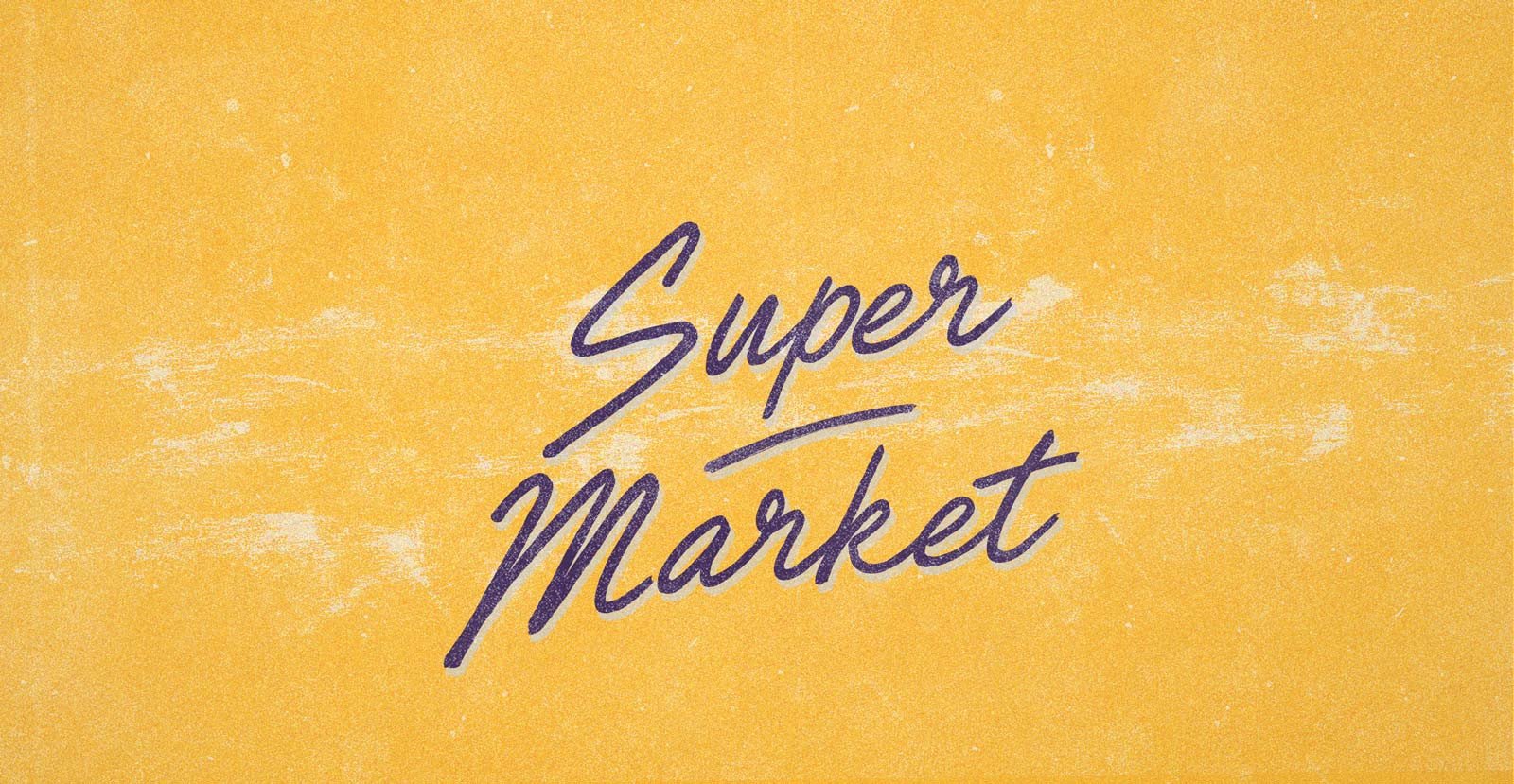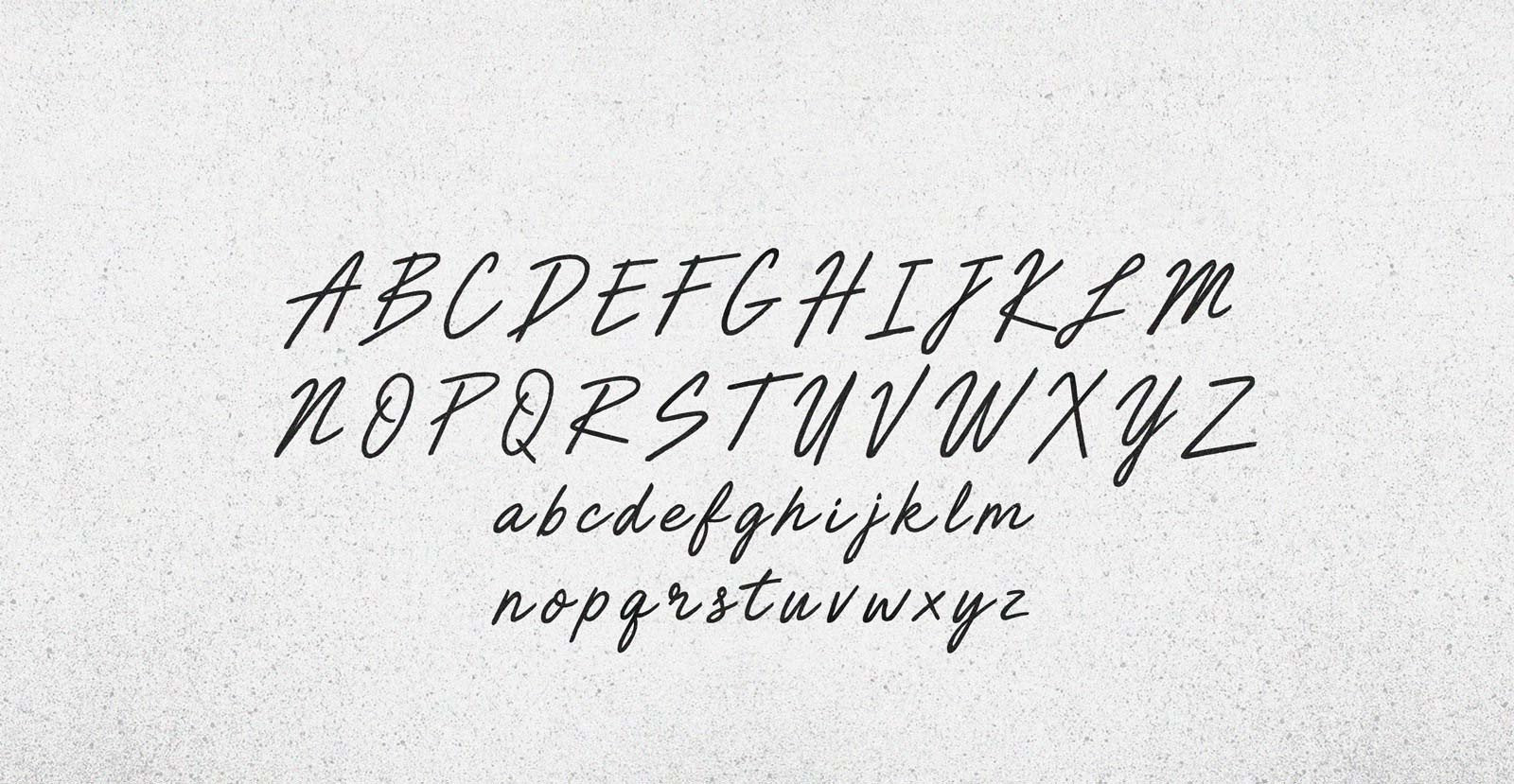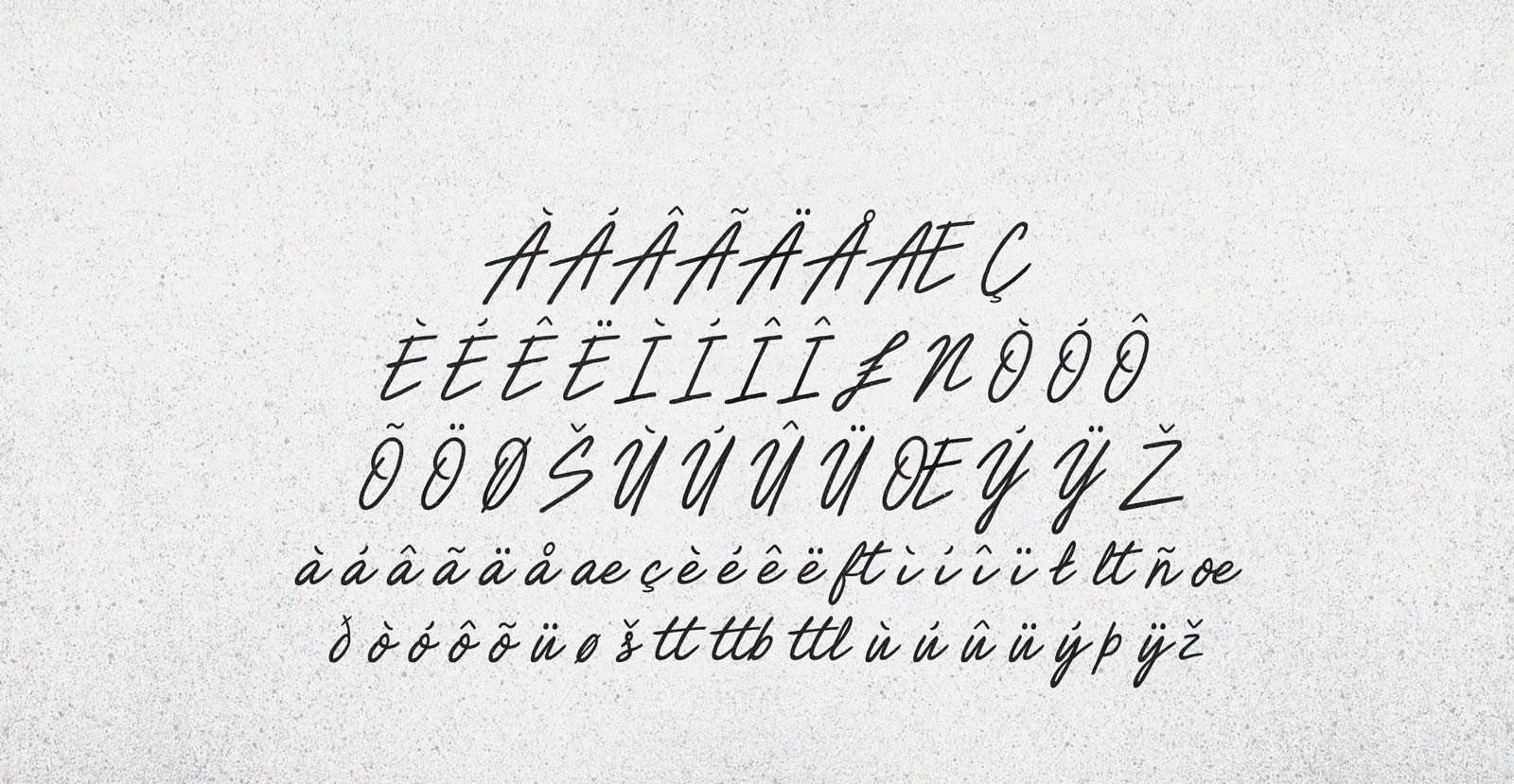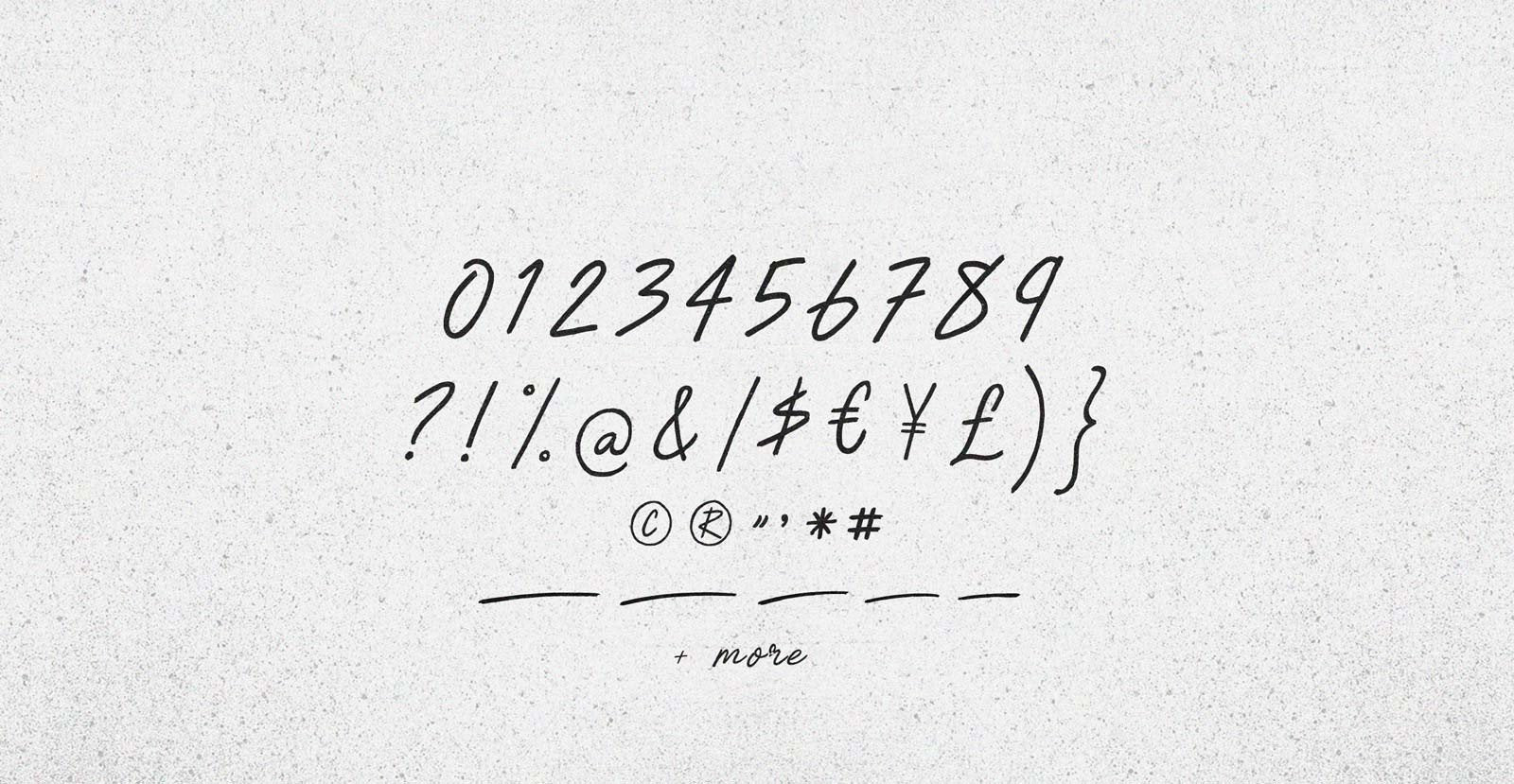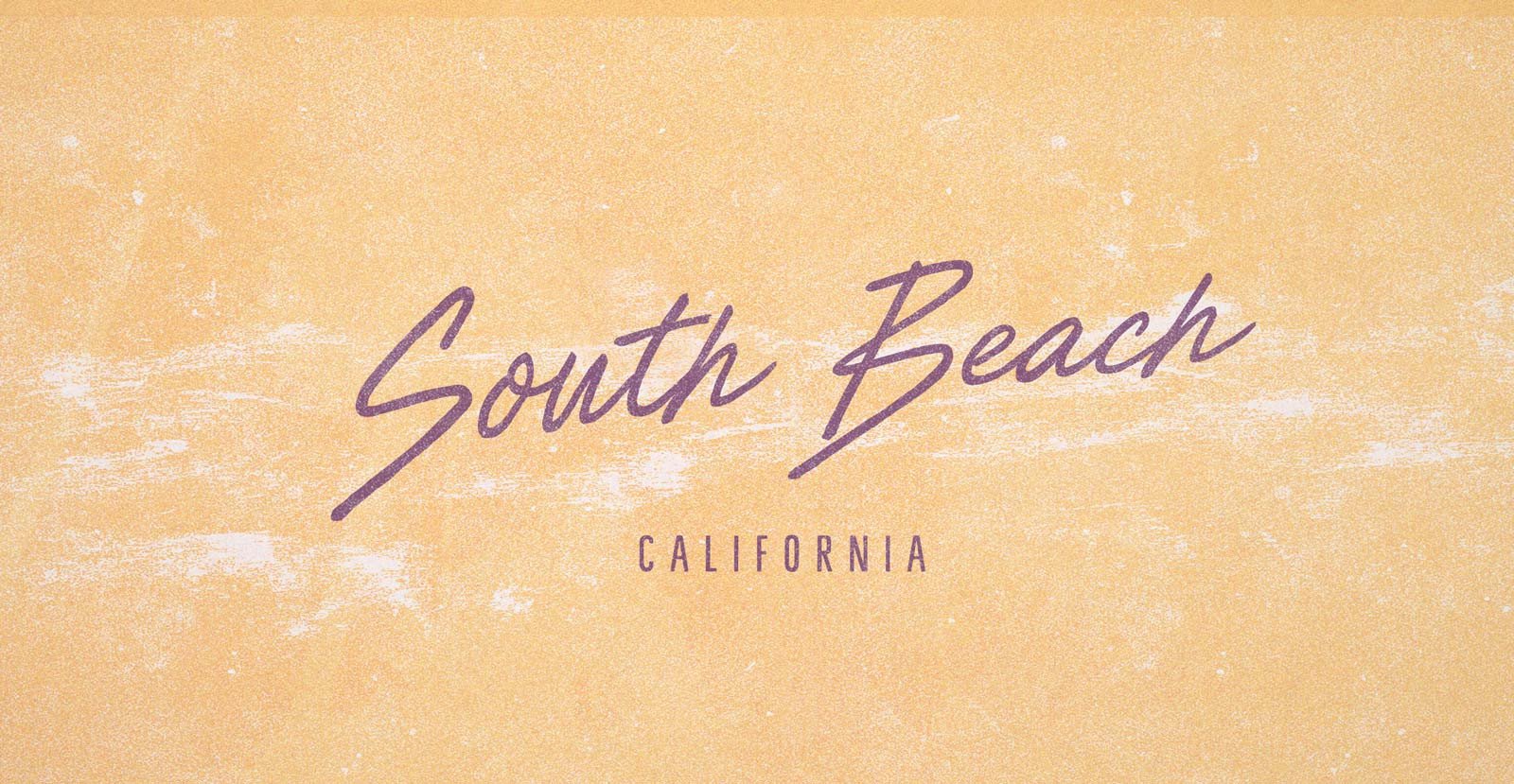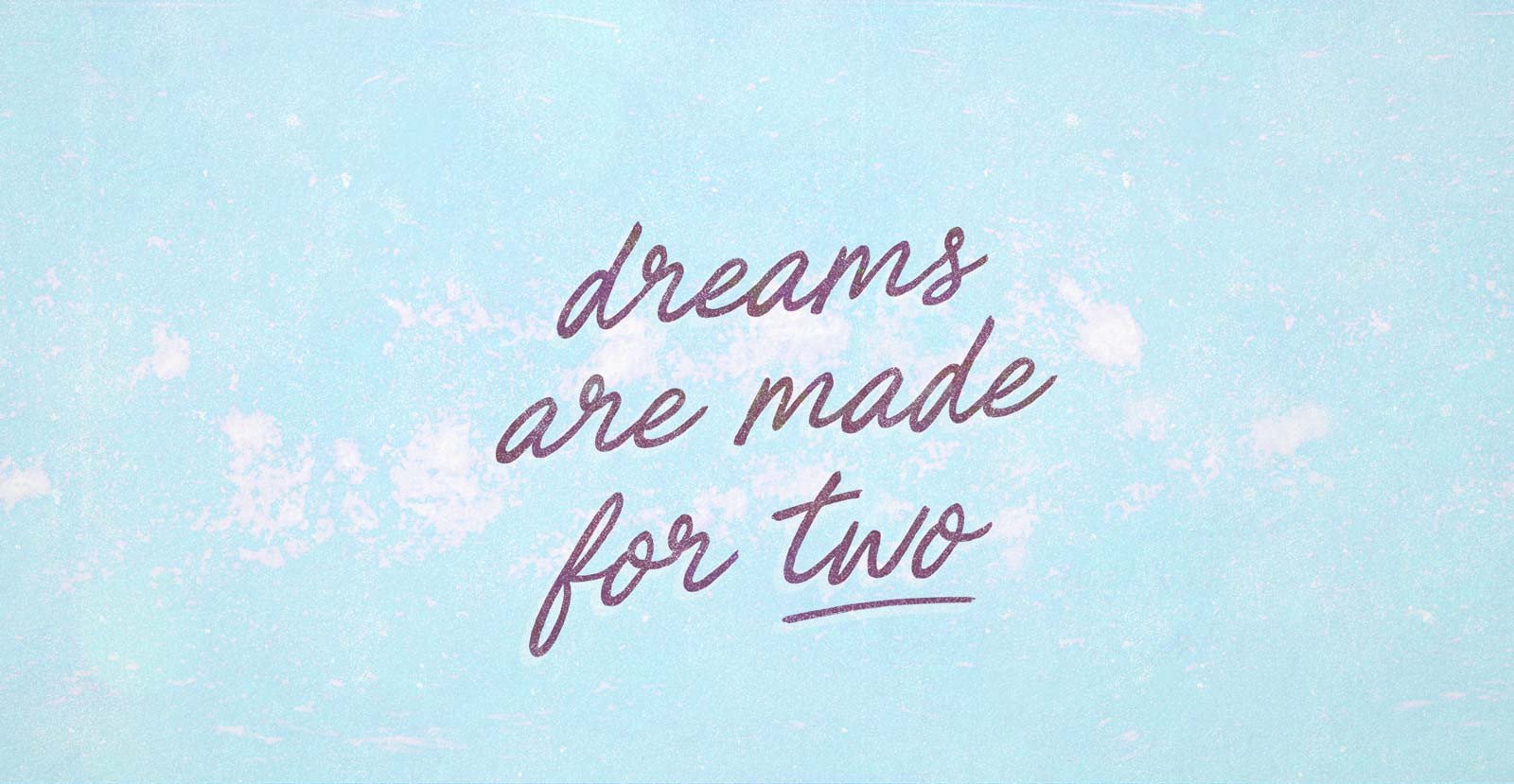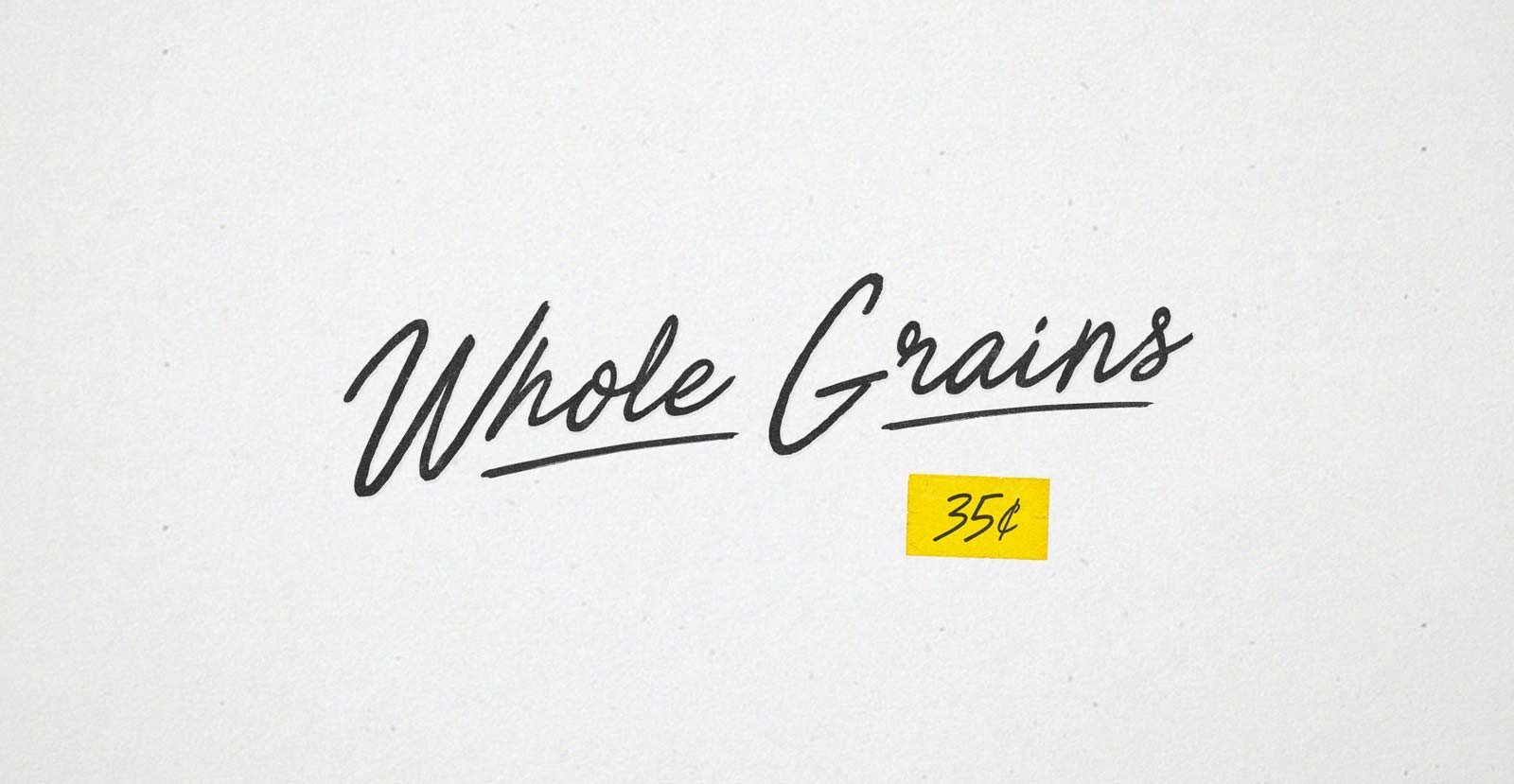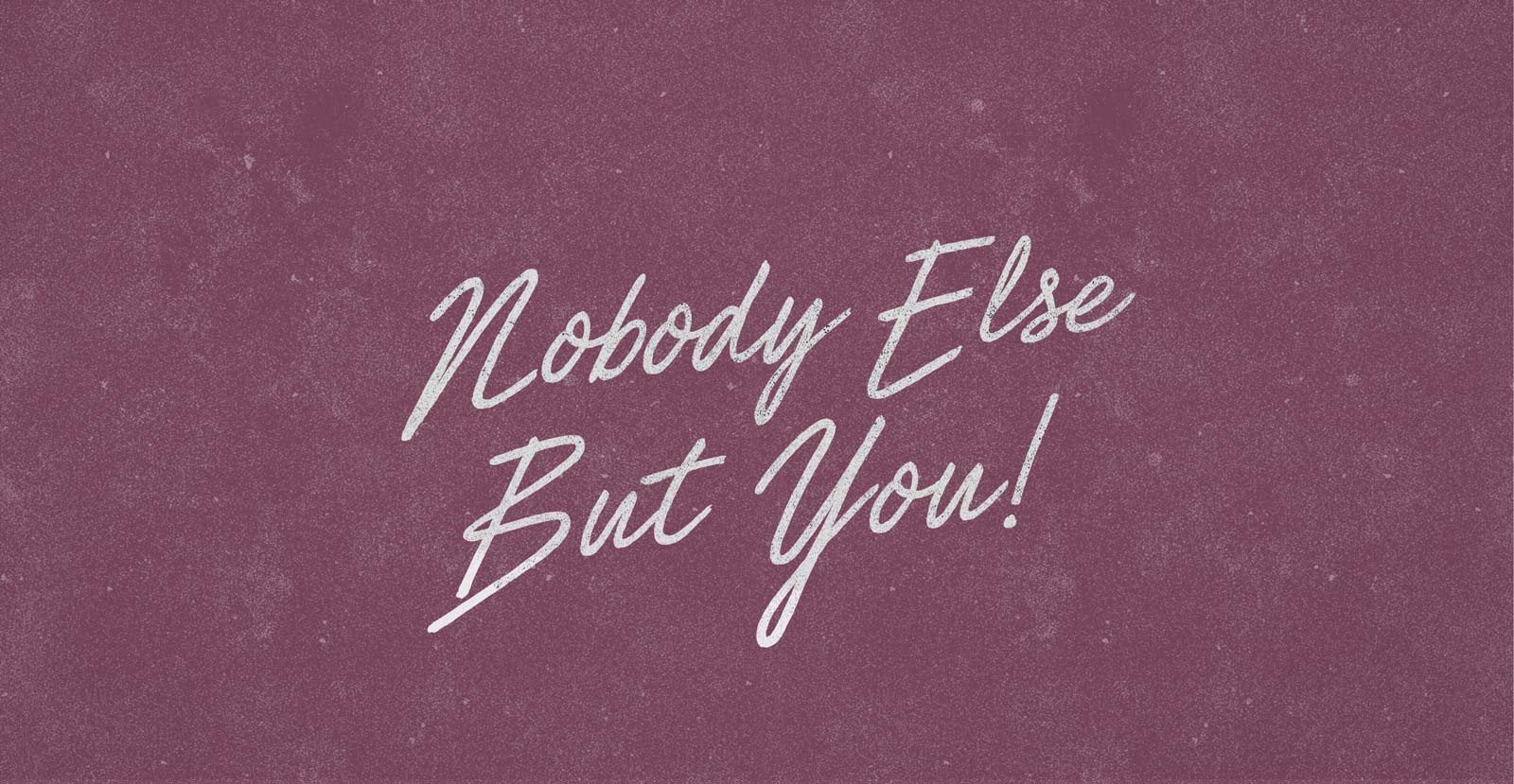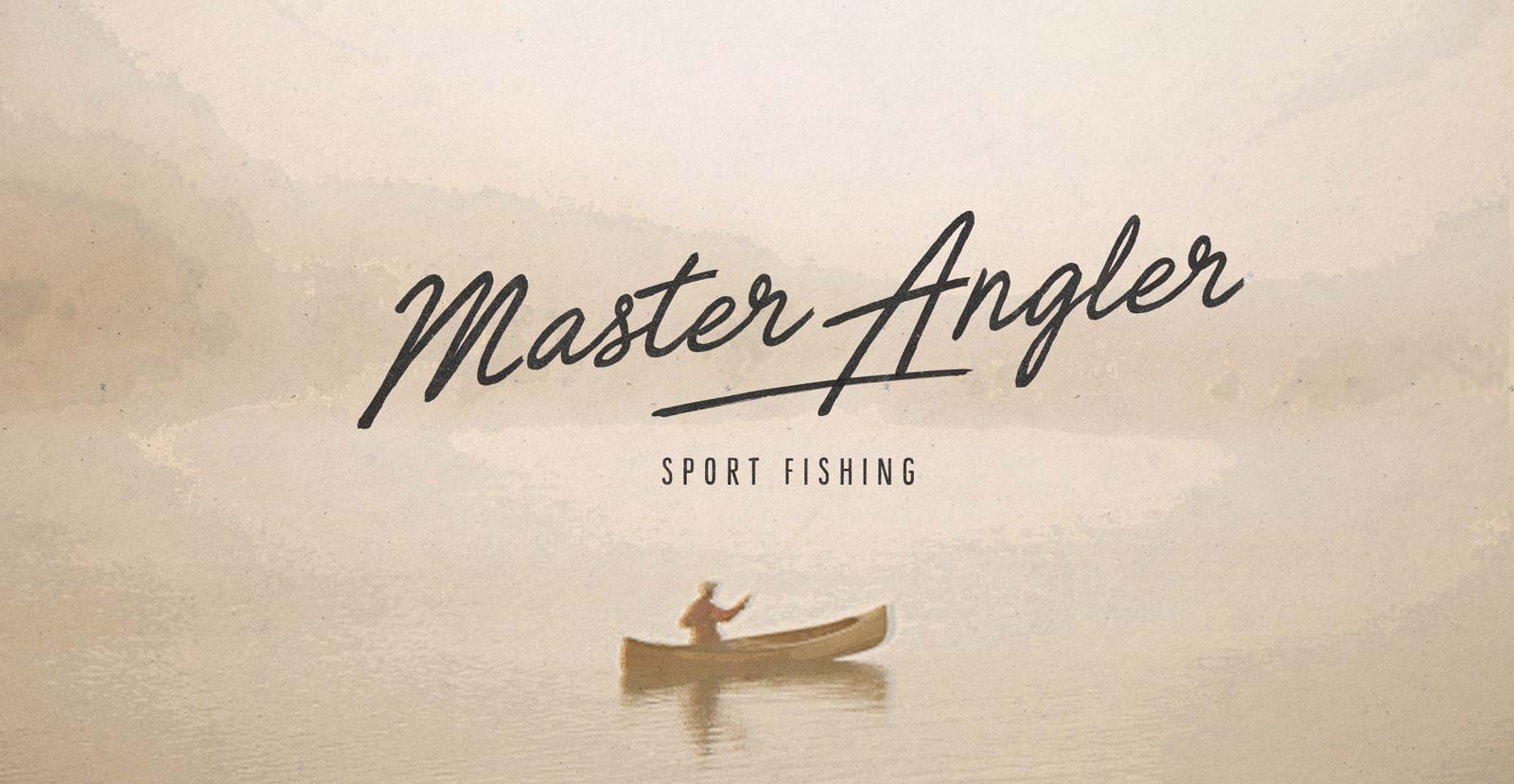
Super Market
Witness the humming hive of household commerce! Each night, her workers emerge to place everything from fresh produce to canned produce in convenient and attractive displays, all in a bid to attract America's increasingly crafty consumers. And each day, the fruits of their labor prove bountiful, as hungry homemakers fill carts with goods to take home to their prosperous families, confident that they can meet any need at the Super Market!